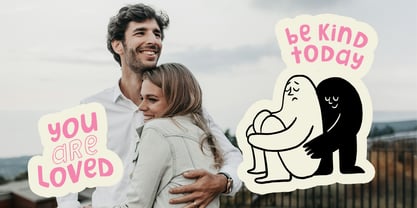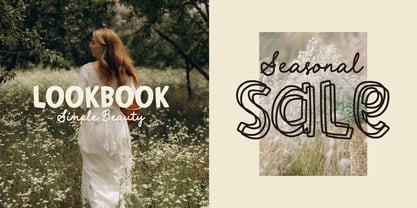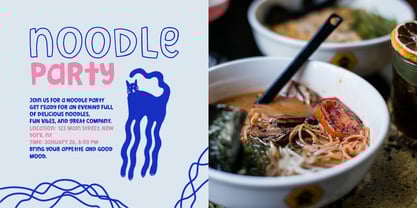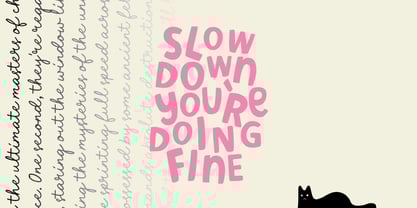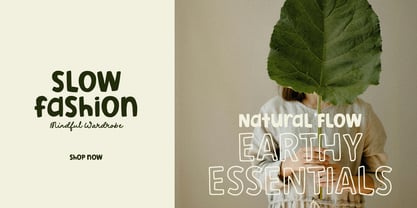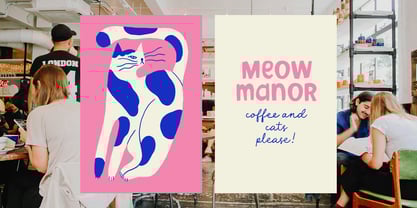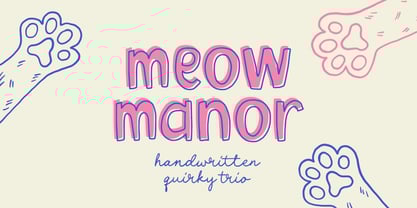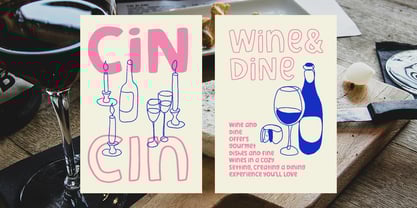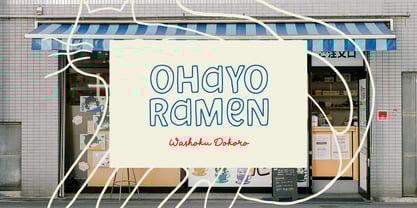
Meow Manor
by Supfonts
The Meow Manor Font Family was designed by Dmitrii Chirkov and published by Supfonts. Meow Manor contains 3 styles and family package options. More about this family
Explore Meow Manor! A delightful, hand-drawn font family made with love just for you. With 3 distinctive styles, it helps you effortlessly add creativity and personality to any project. From modern invitations to unique posters and stylish stationery, Meow Manor is your go-to toolkit for all design needs.
- Meow Manor Script
- Meow Manor Solid
- Meow Manor Contour